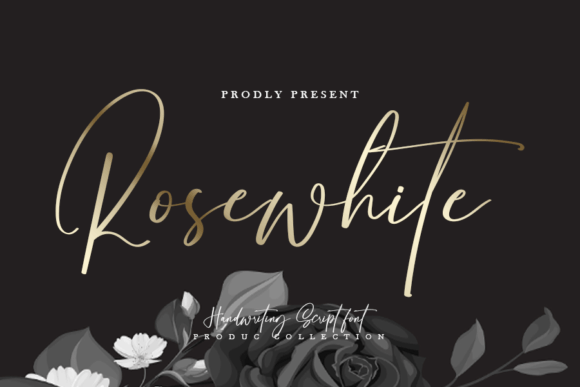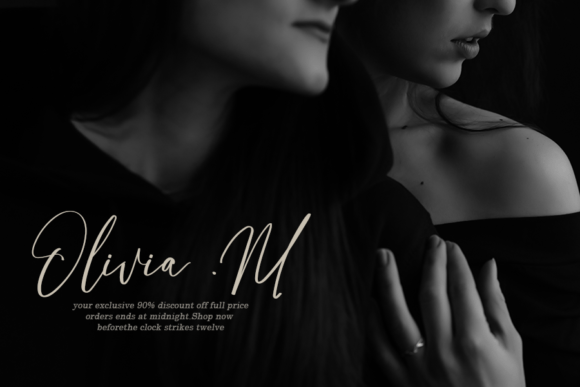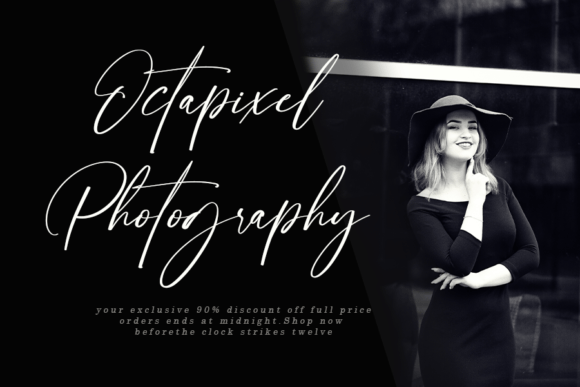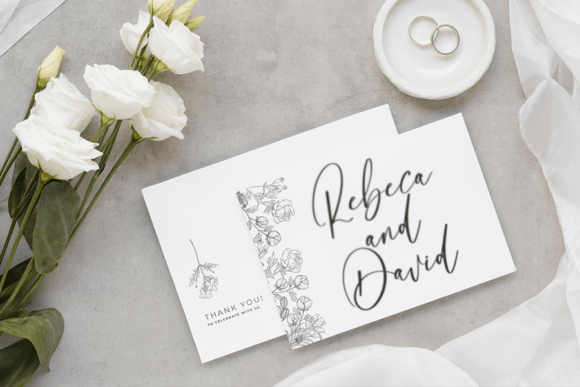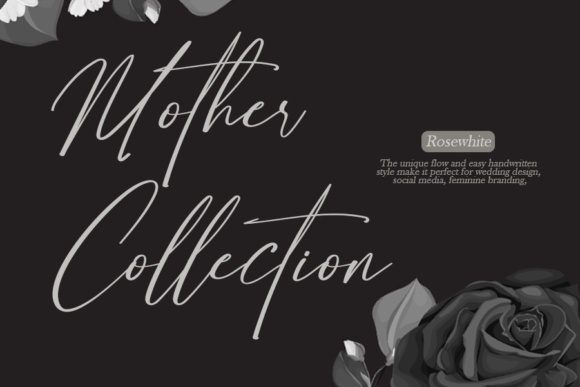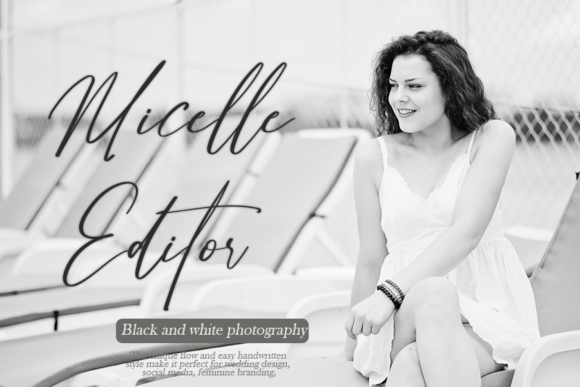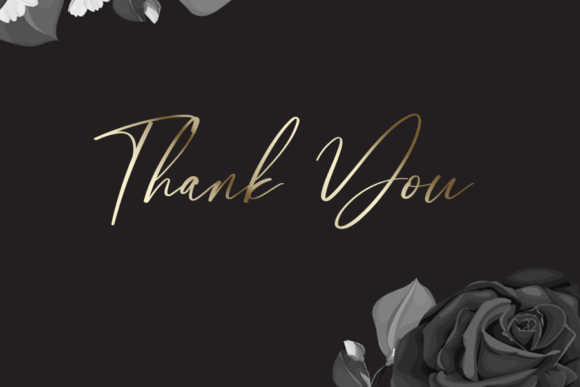
Rosewhite Font
Rosewhite Font Download – Gorgeous Elegant Handwritten Script
The Rosewhite Font download is a stunning handwritten script that combines elegance with modern versatility. With its graceful curves and smooth flow, this typeface gives projects a refined, stylish appearance. Because of its timeless look, it works equally well for professional branding and personal designs.
Gorgeous and Elegant Handwritten Style
Rosewhite features delicate curves and balanced letterforms that make text look elegant and sweet. As a result, it brings sophistication while still feeling warm and approachable. In addition, its graceful strokes ensure that every project feels polished.
Perfect for Invitations and Weddings
From wedding invitations to romantic stationery, this font creates a heartfelt, personal tone. It makes messages more memorable, adding charm and elegance to your special moments. Therefore, it is an excellent option for formal and festive projects.
Rosewhite Font Download for Packaging and Branding
The Rosewhite Font download is also perfect for packaging, logos, and branding campaigns. Its handwritten elegance gives businesses a stylish yet approachable identity, making products and brands stand out.
Magazines, Social Media, and Creative Use
Rosewhite adapts beautifully to editorial layouts, social media graphics, and promotional designs. In addition, it performs well in both print and digital formats, making it versatile for modern creators.
Readability and Timeless Balance
Some handwritten fonts lean too heavily on decoration and lose clarity. However, Rosewhite strikes a balance between beauty and readability. As a result, it is effective for titles, product labels, and supporting details.
Why Add This Script Typeface to Your Collection?
The Rosewhite Font download is elegant, versatile, and easy to use. In other words, it fits weddings, branding, packaging, magazines, and creative projects alike. Finally, it is a handwritten font that adds sophistication, warmth, and timeless charm to every design.